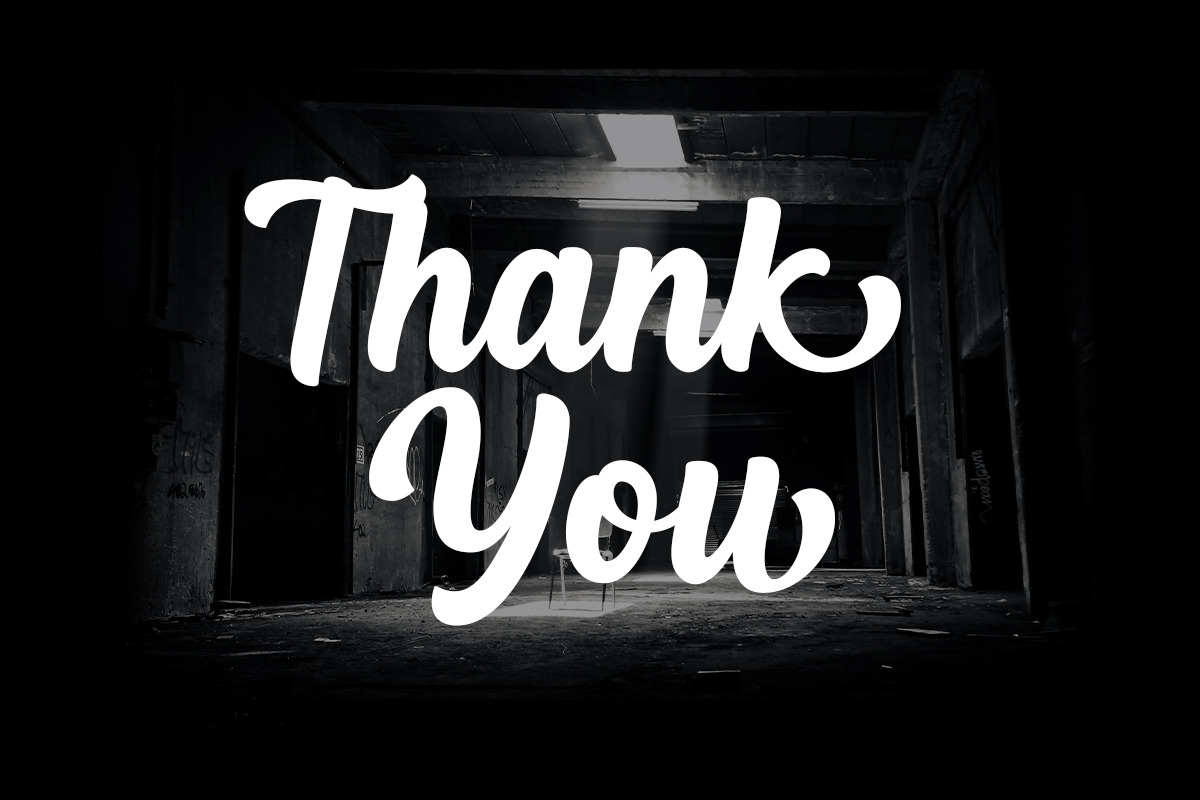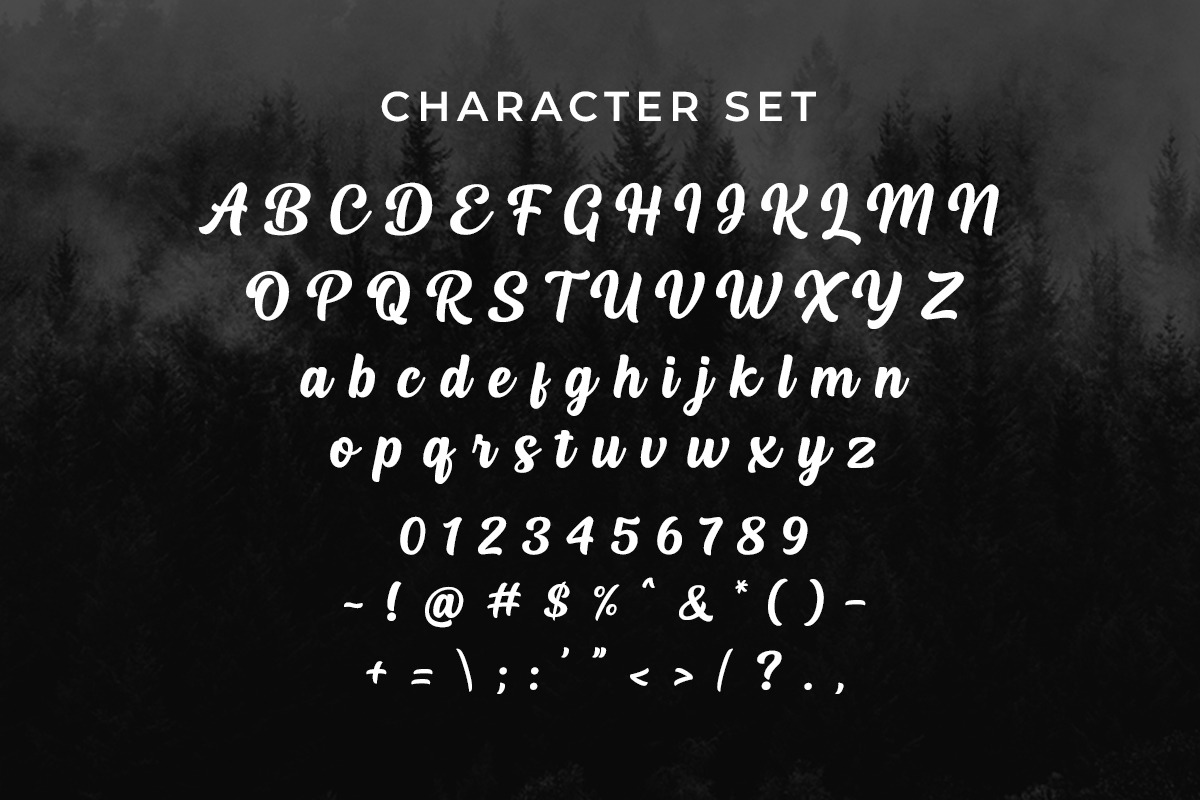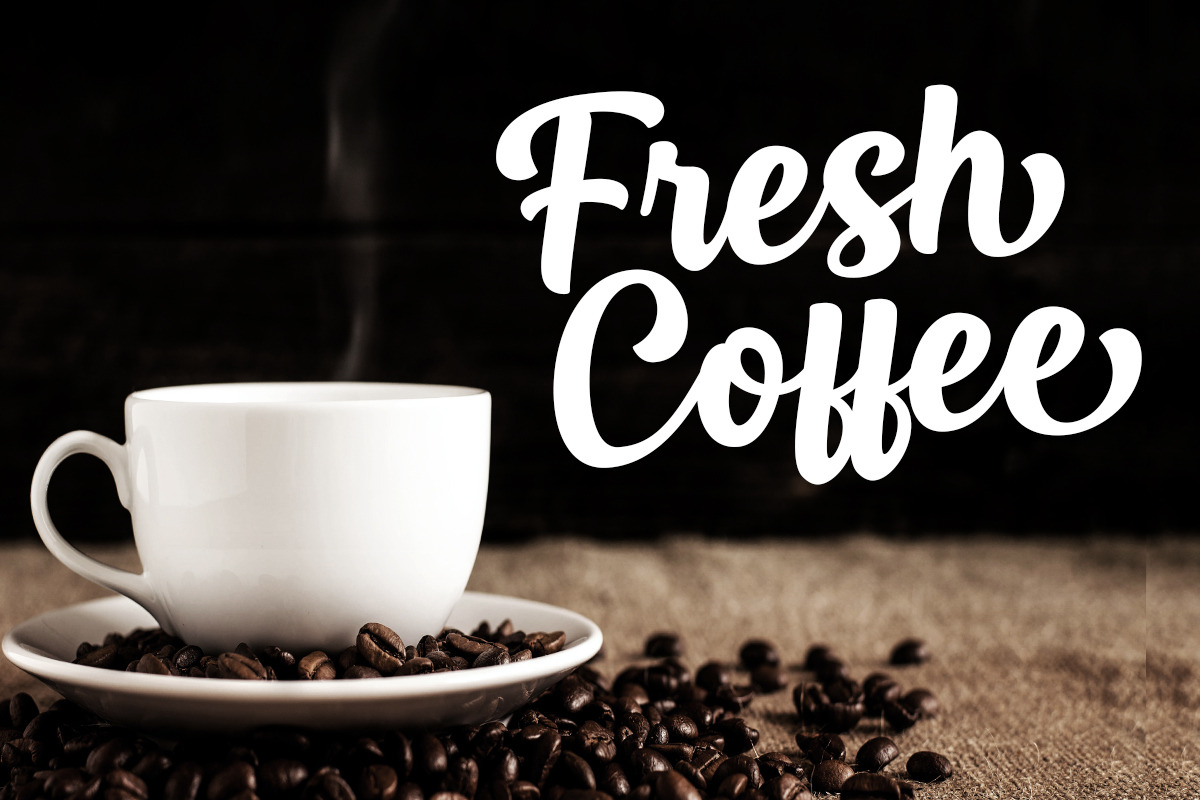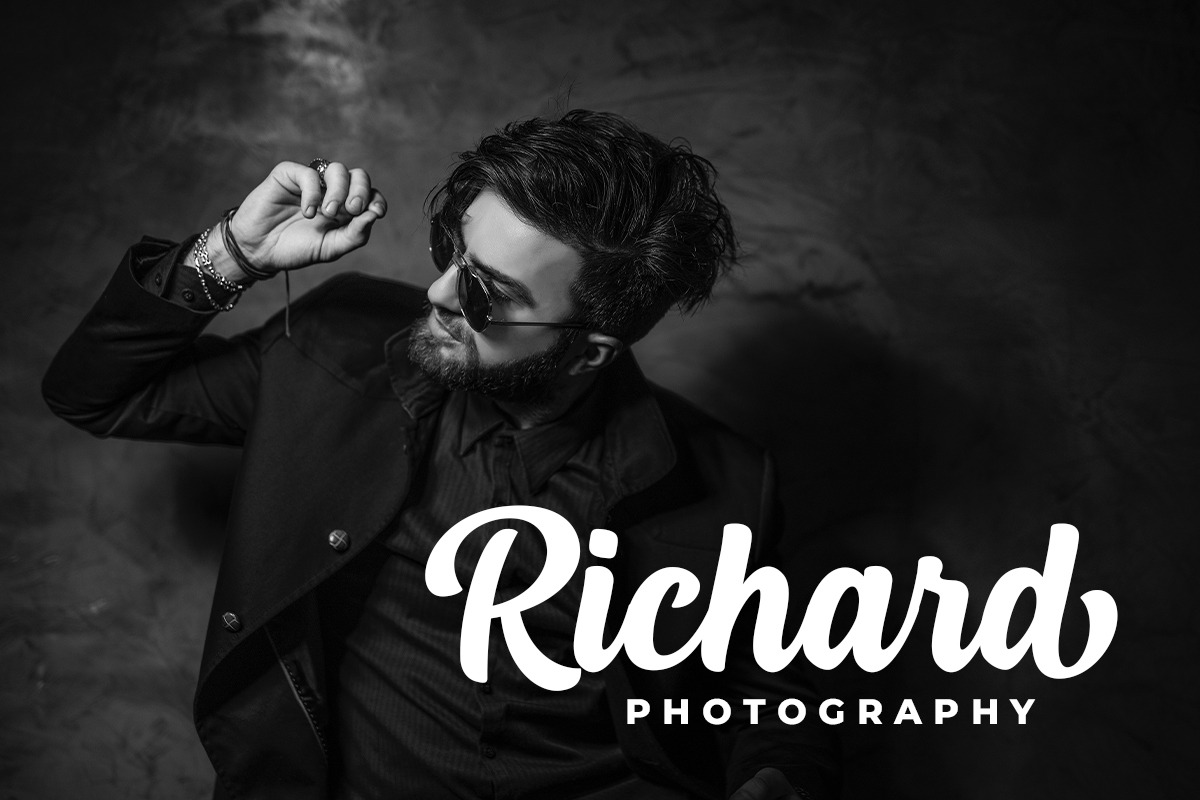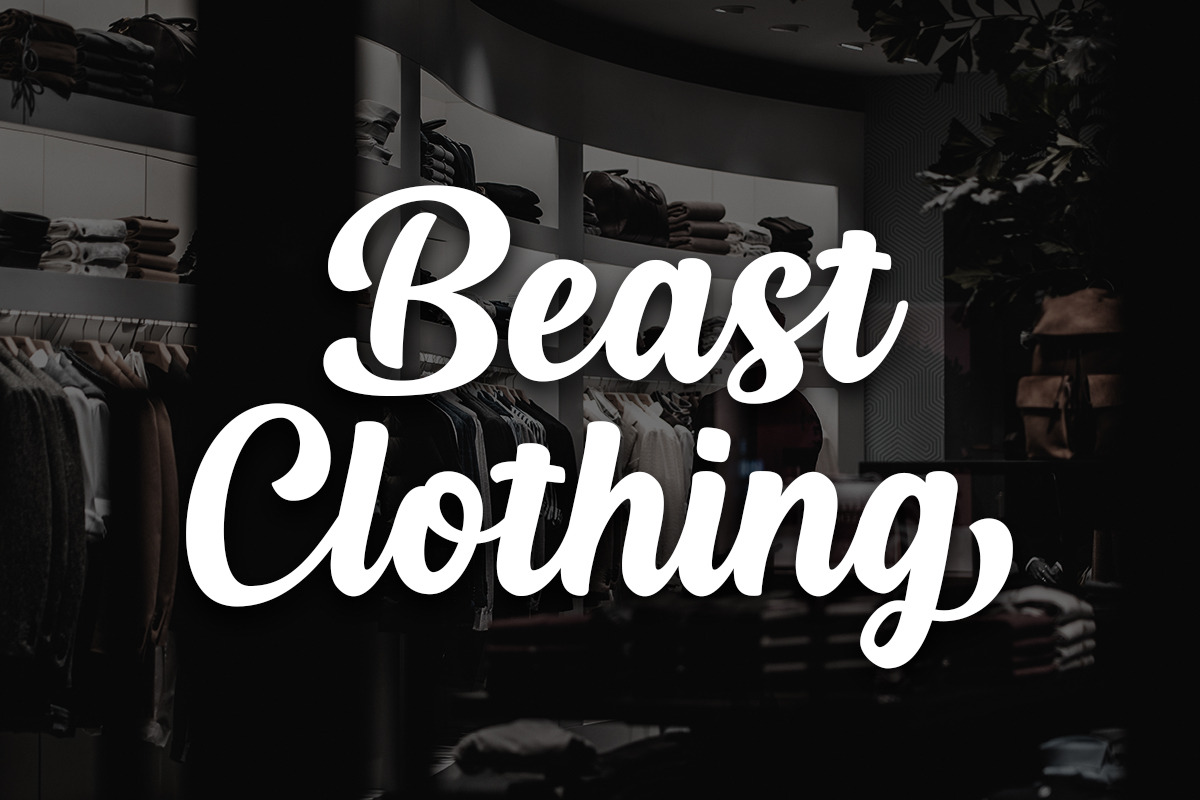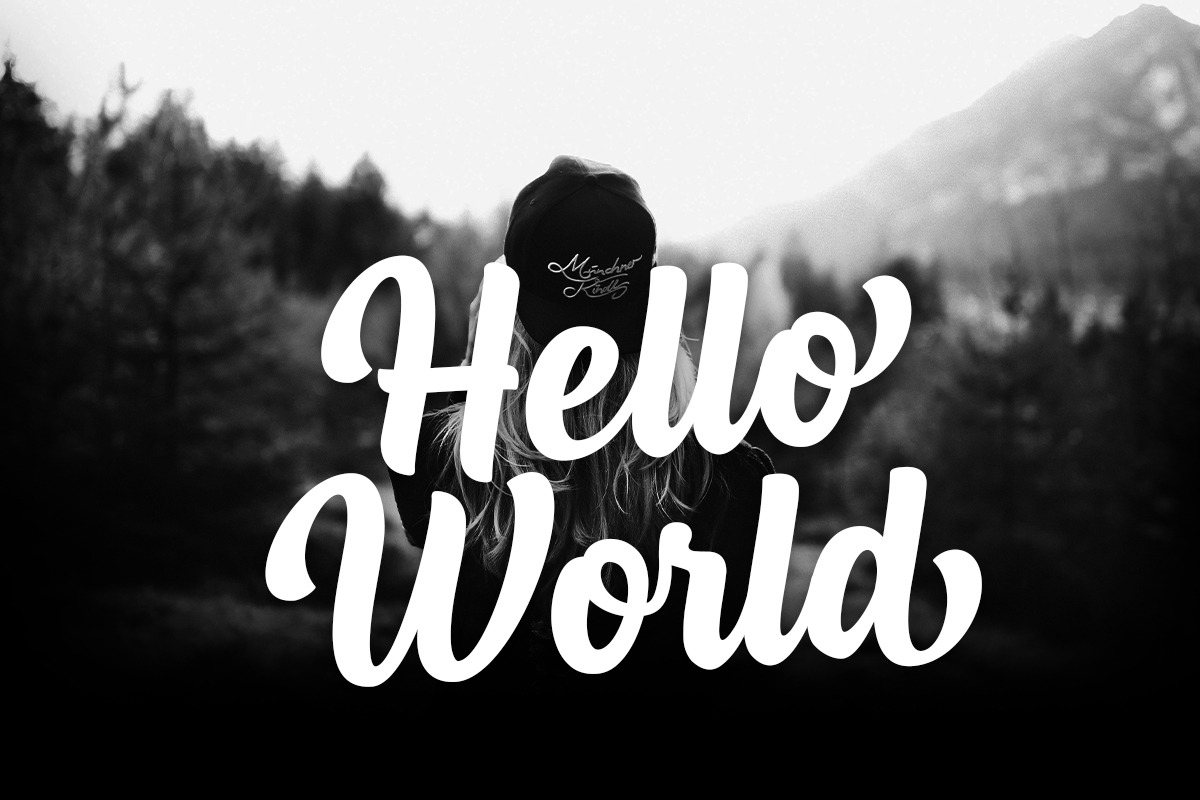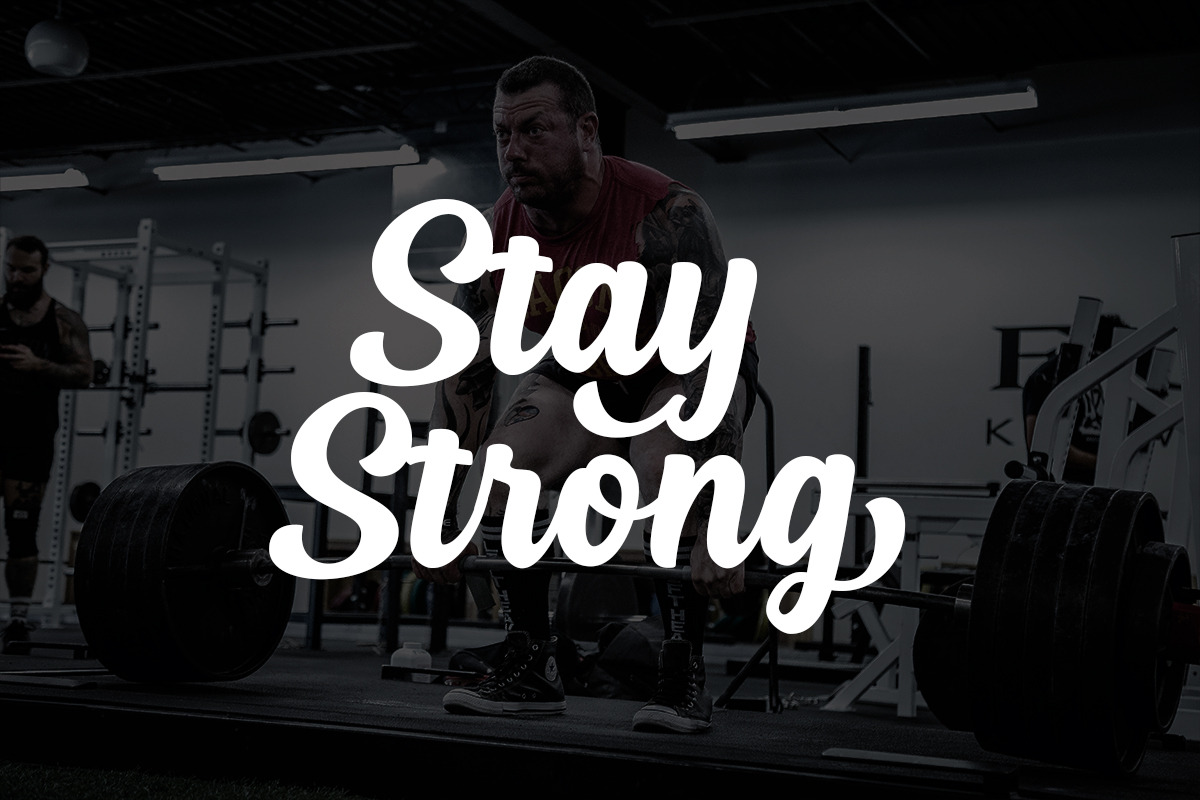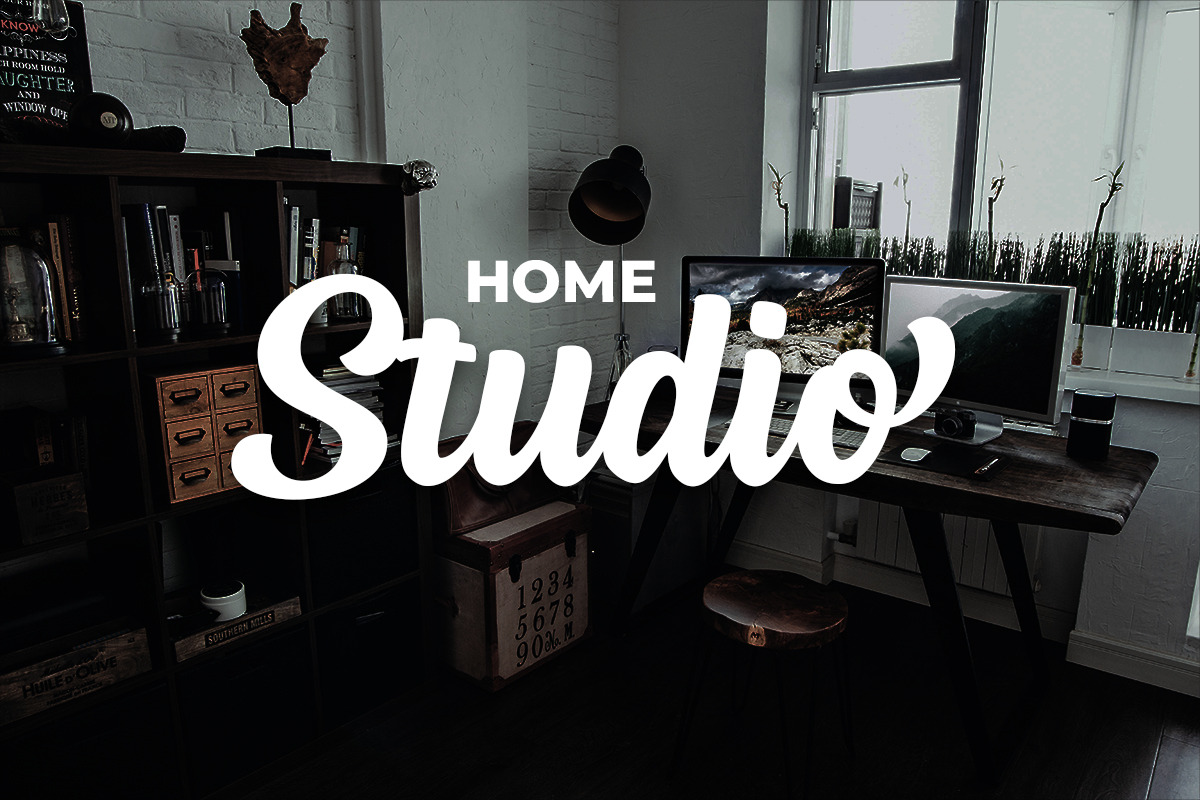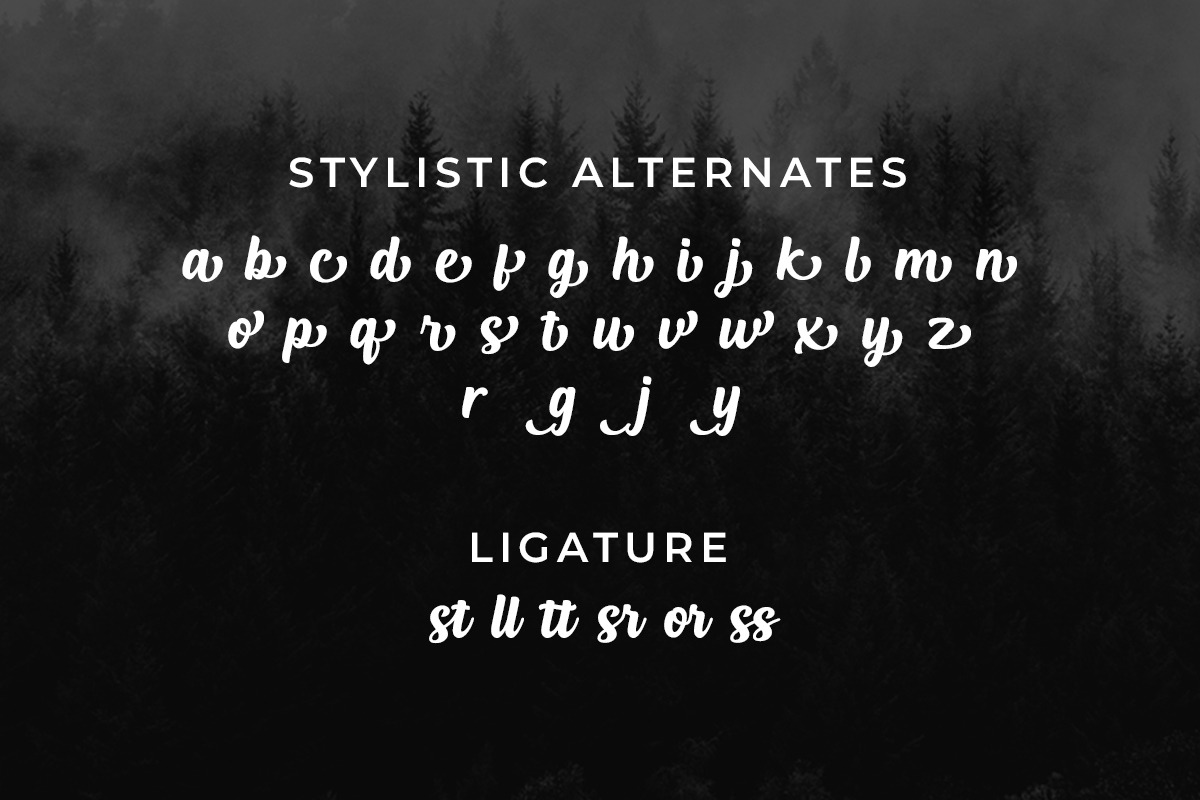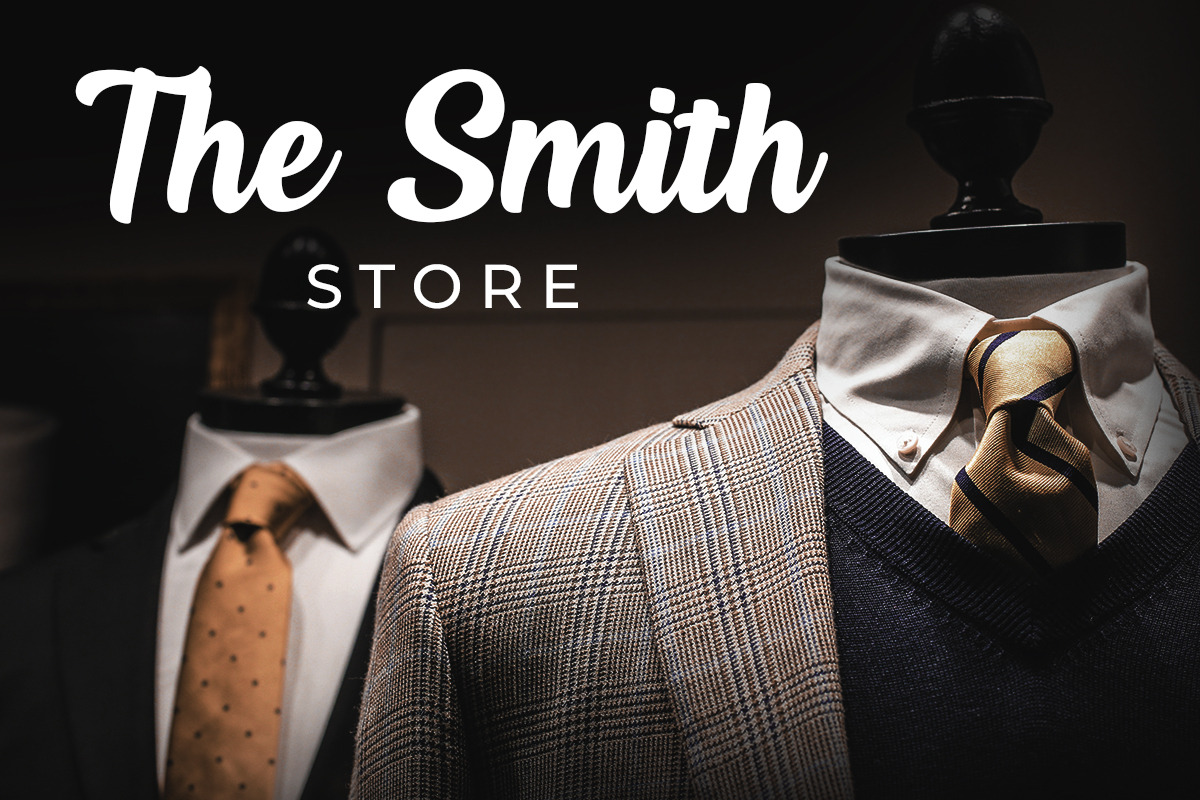
Haliond Modern Script
Haliond is a modern script font with bold style and modern looks.
This font would perfect for logos, branding, product designs, product packaging, photography, watermark, social media posts, advertisements, invitation, stationery, labels, logos, magazines, books, greeting / wedding cards, fashion, make up, and etc.